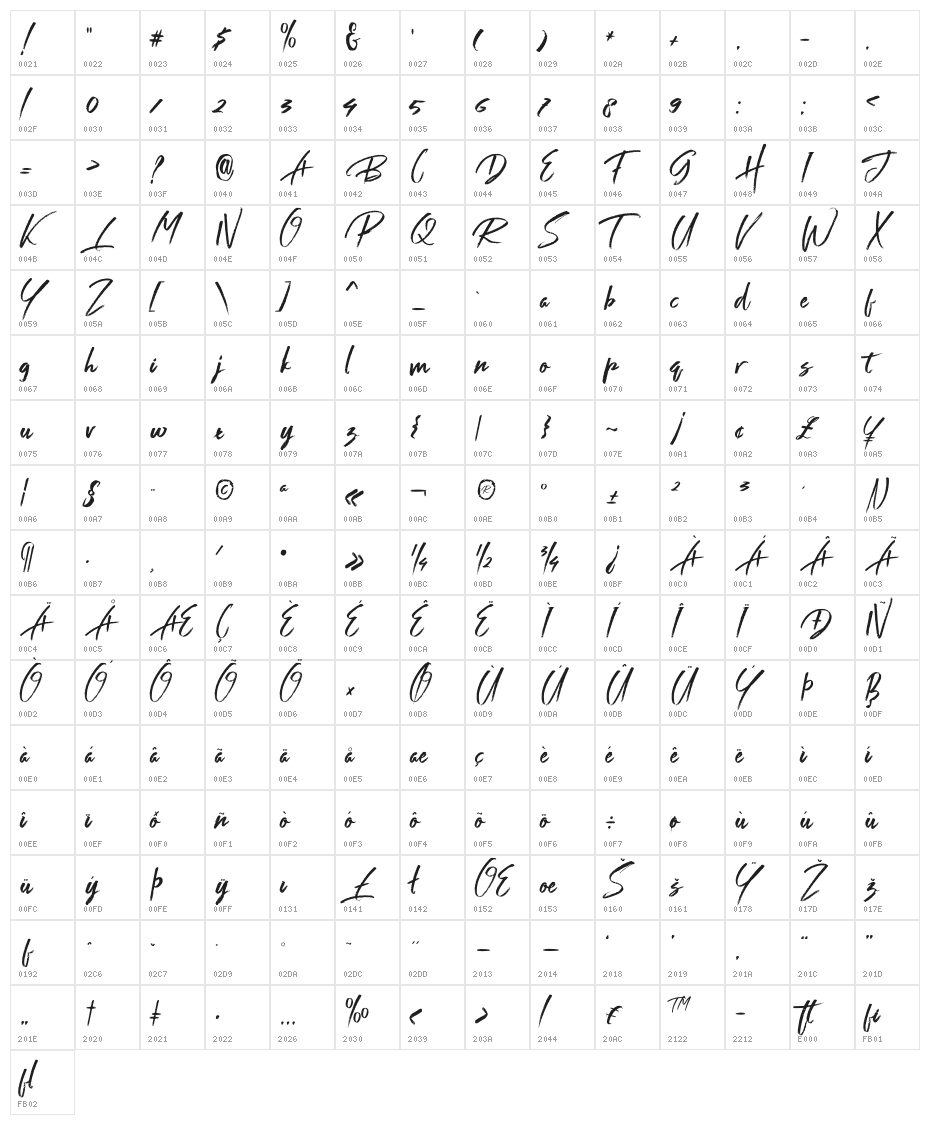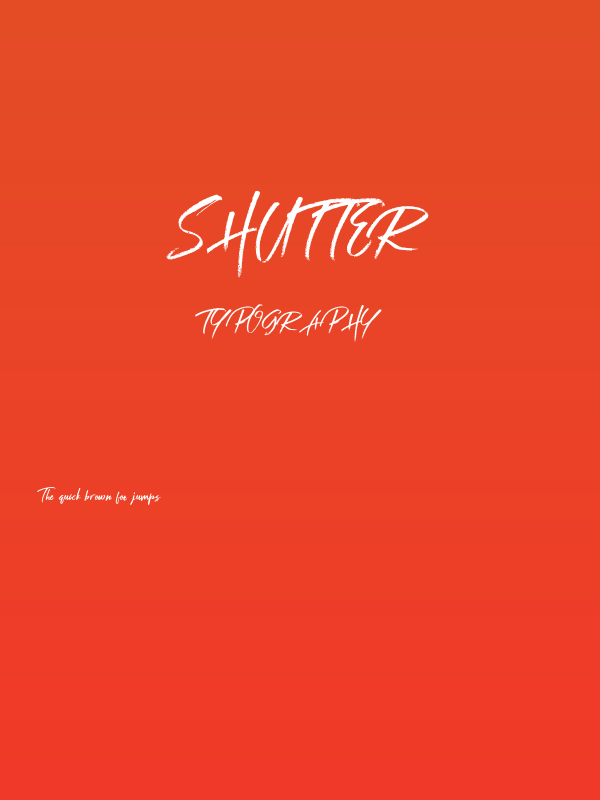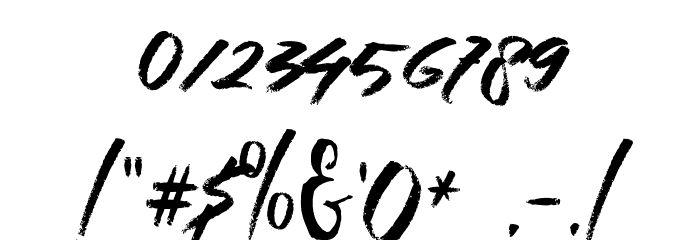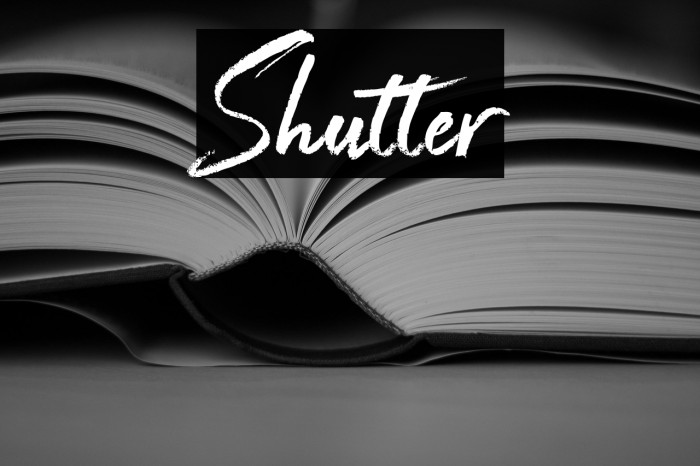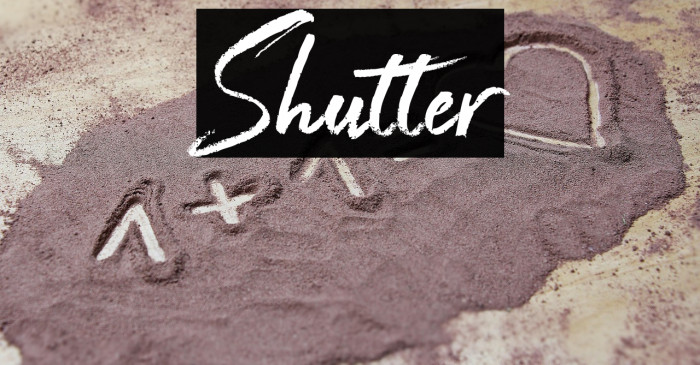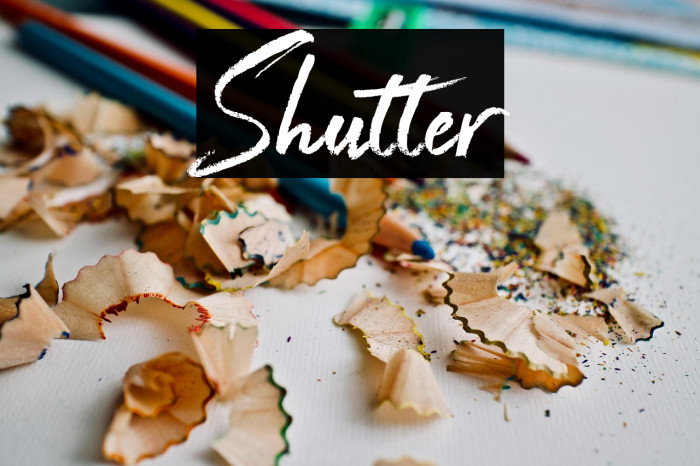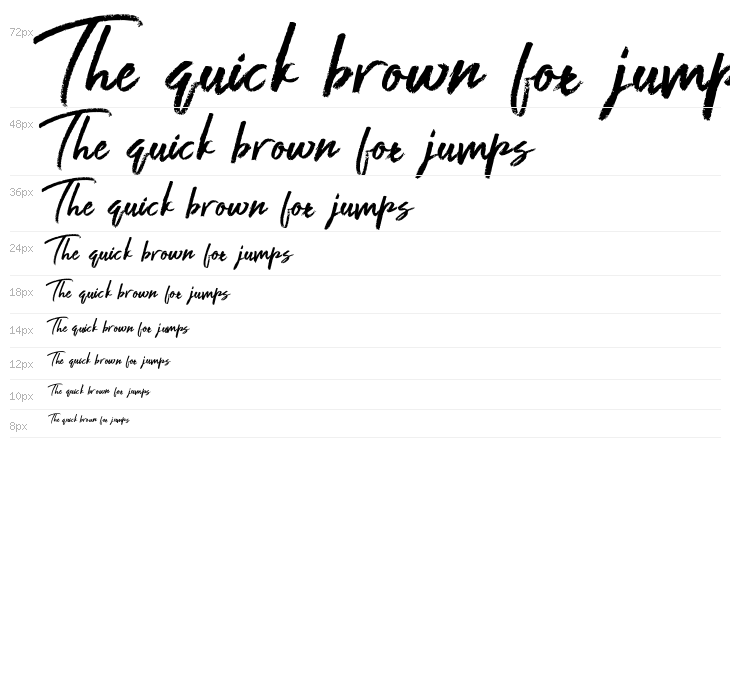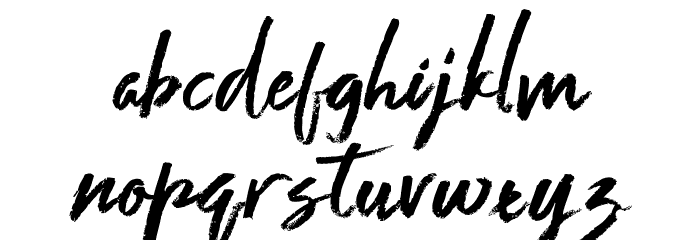
Shutter Font
Shutter Description
This font exudes a dynamic and energetic style, characterized by its bold, brush-like strokes that convey a sense of movement and spontaneity. The letters are slightly slanted, giving it a casual yet sophisticated appearance. The uppercase and lowercase letters maintain a consistent flow, with varying stroke thickness that adds a touch of artistic flair. The numerals and special characters are equally expressive, making this font suitable for creative and eye-catching designs. Its overall aesthetic is both modern and artistic, perfect for making a statement.
| Overall Style | Modern, Artistic |
| Proposed Projects | Ideal for branding, posters, invitations, and artistic projects requiring a bold, expressive touch. |